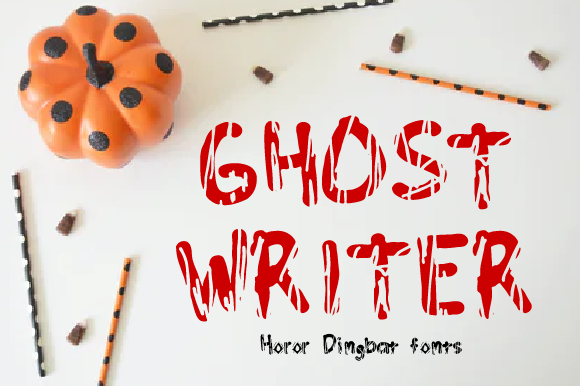
Unleash Your Creativity with Ghost Writer Font
Are you tired of using the same old fonts for your creative projects? Look no further than the Ghost Writer Font, a unique and interesting display font that’s sure to make your ideas stand out. In this article, we’ll dive into the world of Ghost Writer Font and explore its features, benefits, and uses.
What is Ghost Writer Font?
Ghost Writer Font is a distinctive display font designed to add a touch of elegance and sophistication to your creative projects. Its unique and interesting design makes it perfect for a wide range of applications, from crafting and scrapbooking to graphic design and digital art.
Key Features of Ghost Writer Font
- Unique Design: Ghost Writer Font boasts a one-of-a-kind design that’s sure to grab attention.
- Display Font: This font is specifically designed for display purposes, making it perfect for headlines, titles, and other prominent text elements.
- Easy to Read: Despite its unique design, Ghost Writer Font is easy to read, even at smaller sizes.
- Versatile: This font can be used for a wide range of creative projects, from digital art to crafting and scrapbooking.
Benefits of Using Ghost Writer Font
So why should you choose Ghost Writer Font for your creative projects? Here are just a few benefits:
- Adds Visual Interest: Ghost Writer Font adds a touch of visual interest to your projects, making them more engaging and attention-grabbing.
- Enhances Creativity: With its unique design, Ghost Writer Font can help stimulate your creativity and inspire new ideas.
- Perfect for Branding: This font is ideal for creating distinctive brand identities, logos, and marketing materials.
- Easy to Pair: Ghost Writer Font pairs well with a wide range of other fonts, making it easy to create visually appealing combinations.
Uses for Ghost Writer Font
Ghost Writer Font is incredibly versatile, making it suitable for a wide range of creative projects, including:
- Digital Art: Use Ghost Writer Font to add text elements to your digital art, such as illustrations, paintings, and graphics.
- Crafting and Scrapbooking: Add a touch of elegance to your crafting and scrapbooking projects with Ghost Writer Font.
- Graphic Design: Use this font to create eye-catching headlines, titles, and other text elements for your graphic design projects.
- Branding and Marketing: Ghost Writer Font is perfect for creating distinctive brand identities, logos, and marketing materials.
Tips for Using Ghost Writer Font
Here are a few tips for getting the most out of Ghost Writer Font:
- Experiment with Sizes: Try using Ghost Writer Font at different sizes to see how it looks in various contexts.
- Pair with Other Fonts: Experiment with pairing Ghost Writer Font with other fonts to create visually appealing combinations.
- Use for Headlines: Use Ghost Writer Font for headlines and titles to add visual interest and emphasis.
- Be Creative: Don’t be afraid to experiment and try new things with Ghost Writer Font – it’s a versatile font that can be used in many different ways.
Ghost Writer Font is a unique and interesting display font that’s sure to add a touch of elegance and sophistication to your creative projects. With its distinctive design, versatility, and ease of use, it’s the perfect choice for designers, crafters, and artists looking to make their ideas stand out. So why not give Ghost Writer Font a try and see how it can enhance your creative projects?